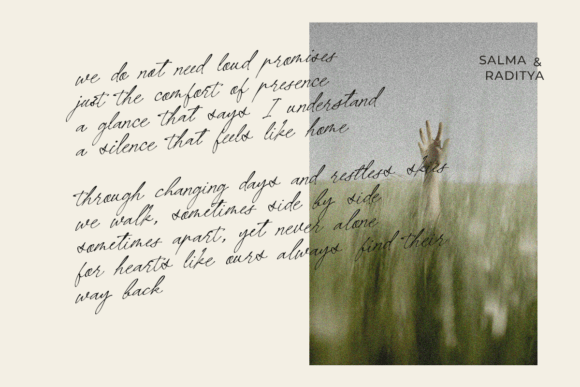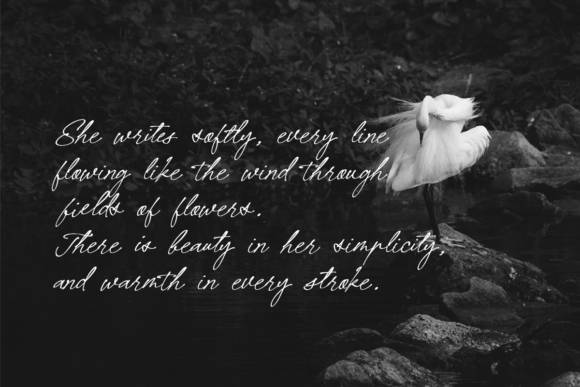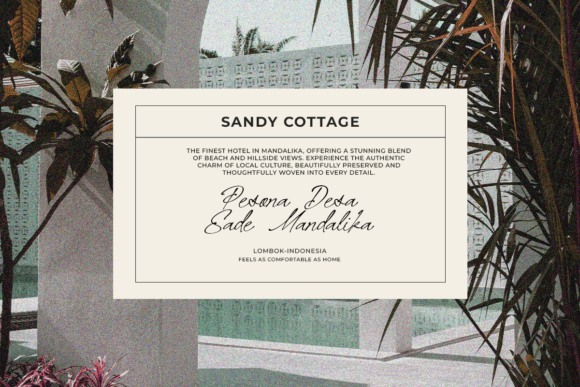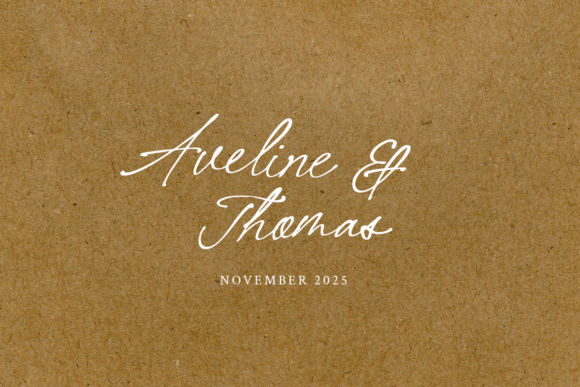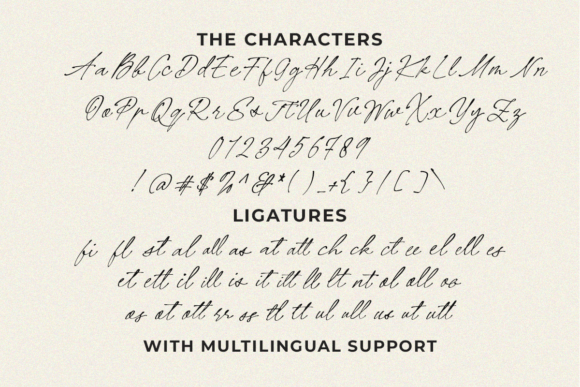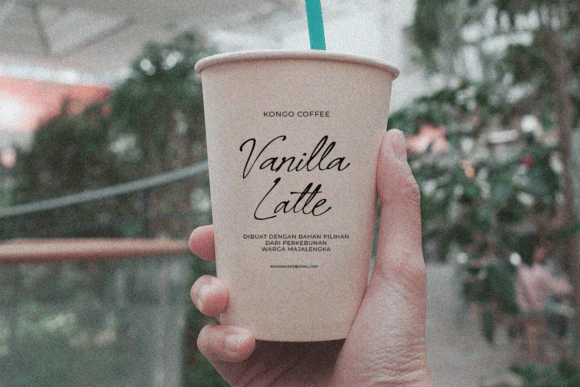
Introduction to Silent Tower Font
🖋️ Silent Tower Handwritten Font Silent Tower is an elegant, natural handwritten script that exudes a sophisticated, personal touch, making it the perfect choice for conveying intimate yet high-end messages.
The font’s smooth, flowing connections and varying stroke weight give it the authentic look of actual penmanship, while its defining uniqueness comes from the inclusion of more than 30 ligatures , ensuring seamless, natural-looking letter joins and exceptional versatility Ideal for wedding invitations, luxury watermarks, elegant branding, sophisticated social media quotes, personalized packaging, and any project that requires an authentic, captivating, and naturally elegant signature style.
Key Features of Silent Tower Font
Why Choose Silent Tower Font?
Silent Tower Font offers exceptional quality and versatility, making it a valuable addition to your design toolkit. Whether you’re creating for personal projects or commercial use, Silent Tower Font delivers professional results.